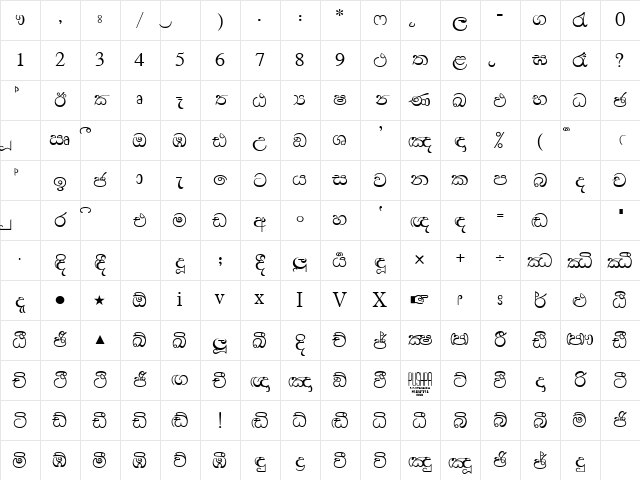
FMAbhaya x
Design Context for FMAbhaya
FMAbhaya is a composed and adaptable typeface that performs quietly and consistently across a wide range of design contexts.
Pro Tip: Use FMAbhaya in both headline and body roles to test its range before committing to a single application.